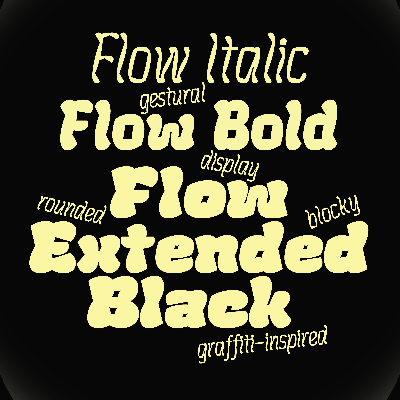
Display Typeface
Type Design / Text + Display Typefaces - Multiple Axis Type Family
The inspiration for my typeface comes from two main sources: the earliest historical inscriptions from St. Sophia's Cathedral in Kyiv dated 12th century — which are also considered the first examples of Ukrainian graffiti — and contemporary graffiti.
I have that idea where my 3 weights reflects my concept of graffiti story: Extended Black weight inspired by big wide modern graffiti in a "throw up" style. Bold inspired by mix of historical first ukrainian graffiti constructions with modern inflated graffiti letters. And Italic inspired by only historical inscriptions which where done in glyptic method of letter writing so it has that contrast, with massive terminals and strong serifs, and it feels like visible ink pools and uneven texture. So my idea is to combine those characteristics, and to use that family stems constructions, but use them in Italic like with those drope serifs (which where not serifs in a Bold and Black stems). So, when I moved the serifs down, a break stayed in the middle of the stem, so I made it narrower on purpose to create an angled shape that makes the contrast and italic feel stronger.
Uliana Tsoryk